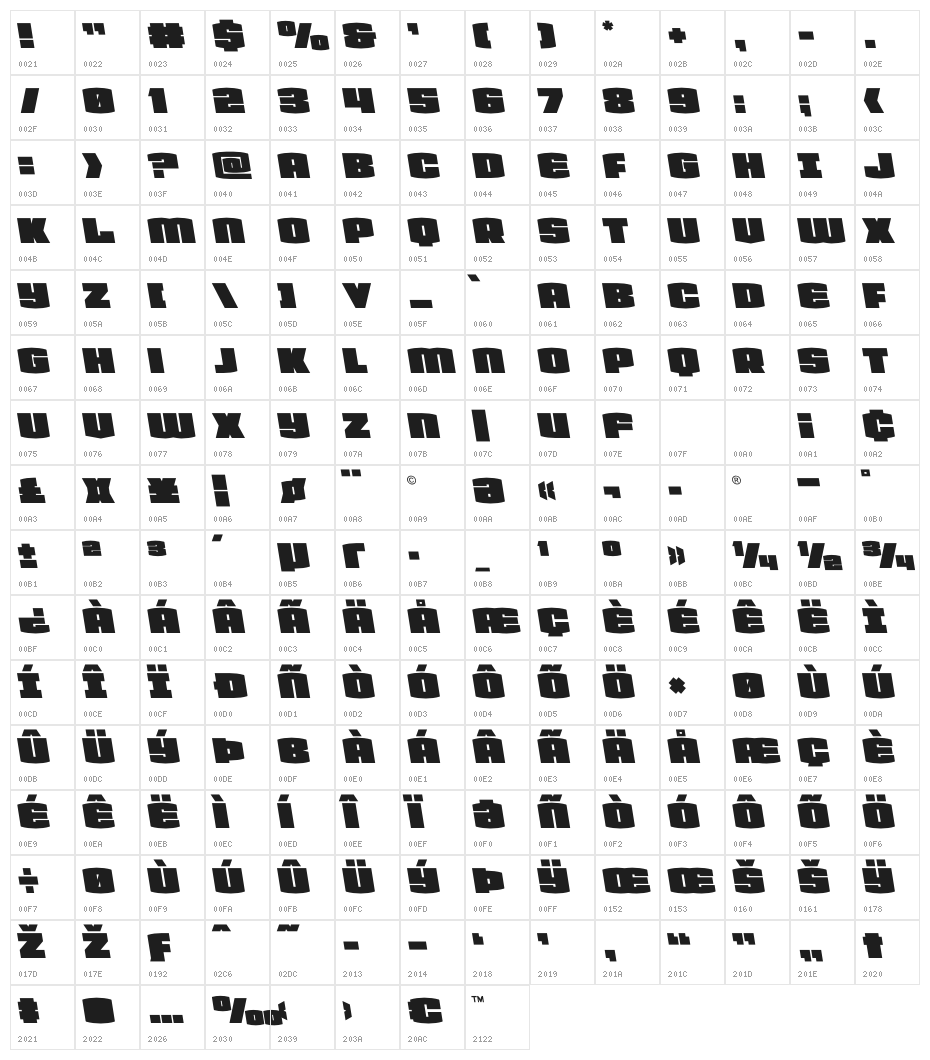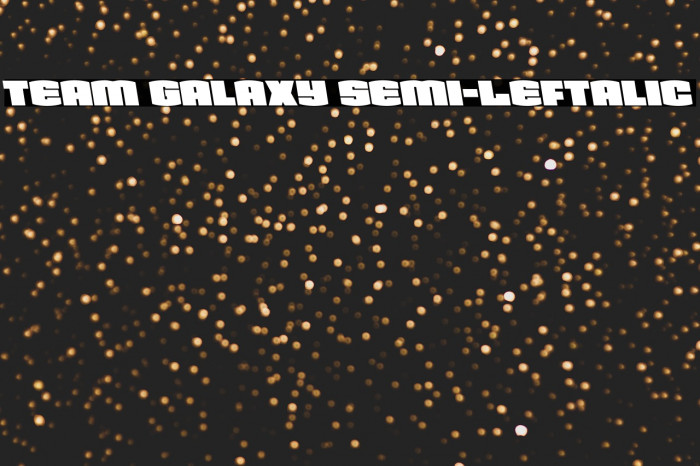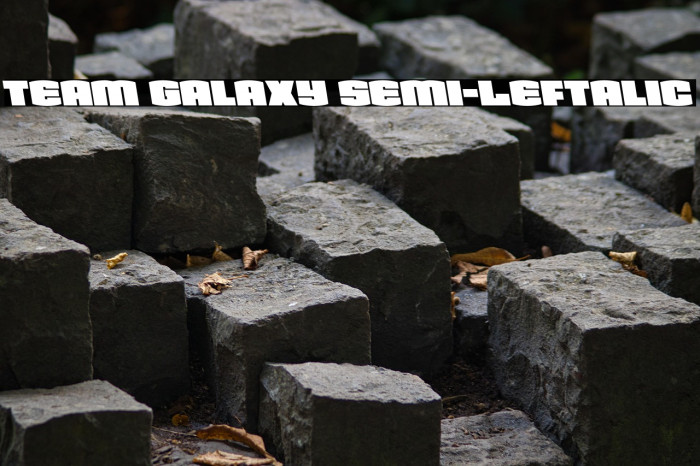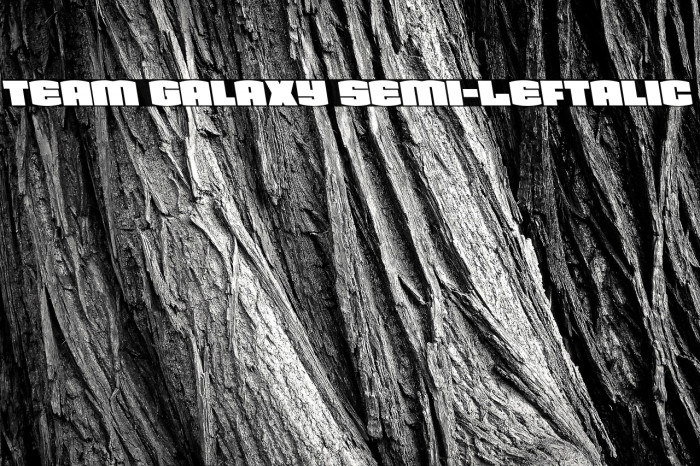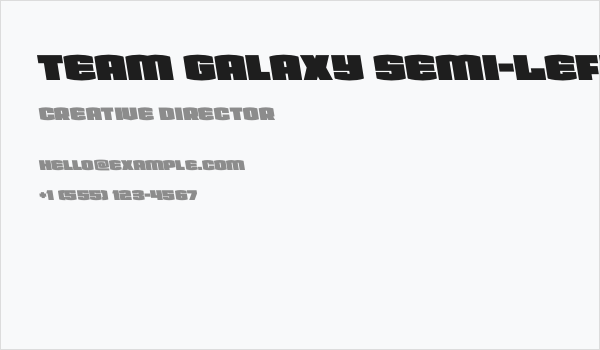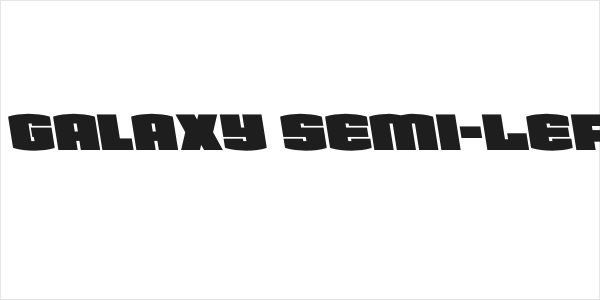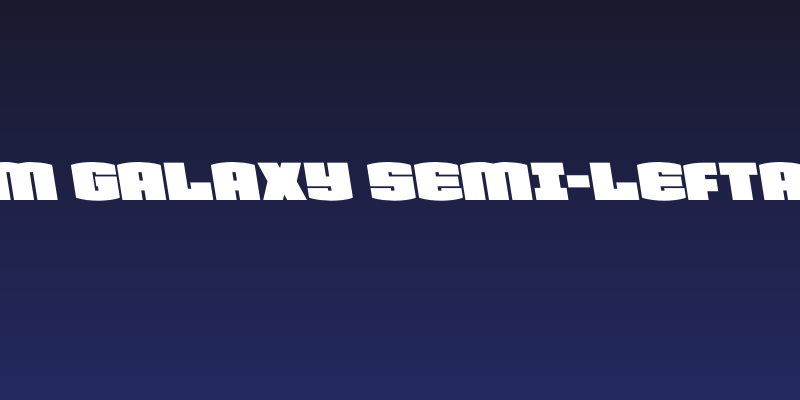
Team Galaxy Semi-Leftalic Font
Team Galaxy Semi-Leftalic Description
This font features a bold, dynamic style with a semi-italic slant to the left, giving it a sense of movement and energy. The characters are wide and blocky, with a strong presence that commands attention. The uppercase and lowercase letters maintain a consistent weight, while the numbers and special characters follow the same bold design. The overall look is modern and impactful, making it suitable for projects that require a strong visual statement.
| Proposed Projects | Ideal for sports branding, event posters, and dynamic logo designs. |